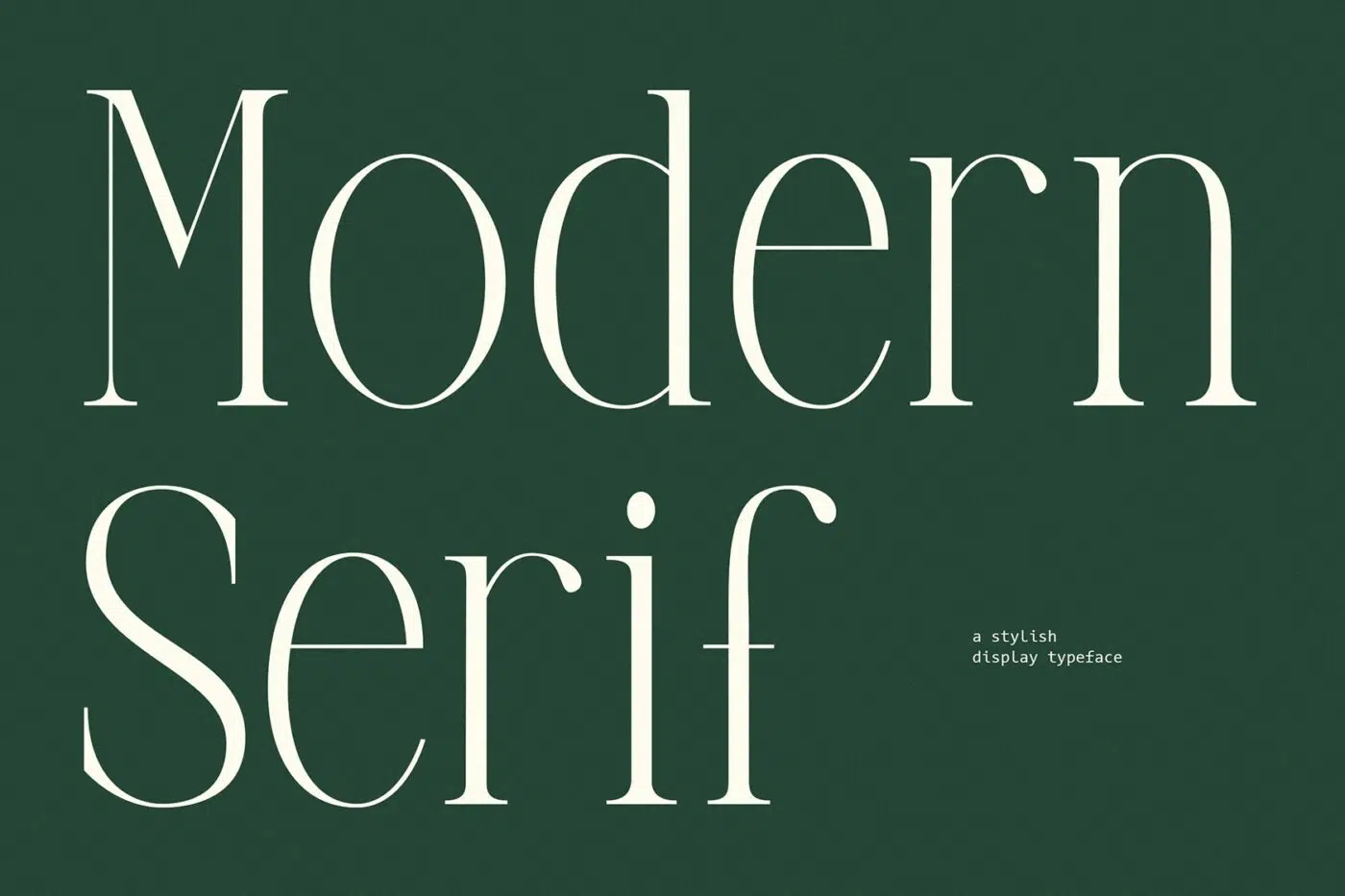
How to Choose the Right Font for Your Brand Identity
When it comes to creating a memorable brand, the visual elements usually steal the spotlight. We often focus on logos, colors, and imagery, but there’s one key player that sometimes gets overlooked—fonts. The fonts you choose can have a huge impact on how people see your brand and can even influence how they interact with it.
In this guide, we’ll dive into why font choice is so important for shaping your brand’s identity, walk you through the process of selecting the right fonts, and share some practical tips on using fonts across different media. Let’s get started!
Understanding Font Basics
Before diving into font selection, it’s helpful to know some basic typography terms that will guide you along the way.
Image above: Showing off our Modern Serif font ‘Brookleigh’
Serif Fonts: These are the classic fonts with small lines or strokes attached to the ends of letters. They give off vibes of tradition, authority, and reliability. Think of fonts like Times New Roman and Georgia .
Image above: A simple handwritten sans-serif font ‘TC Jimmy Sans Pro‘
Sans-Serif Fonts: Sans-serif fonts skip the extra strokes, giving them a clean and modern look. They’re often seen as simple, clear, and up-to-date. Popular examples include Helvetica and Arial.
Image above: Royal Tropic in action on a book cover design!
Script Fonts: These fonts are decorative and mimic handwriting, adding a touch of elegance or creativity. They’re great for conveying luxury or a personal touch, but it’s best to use them sparingly since they can be hard to read in large blocks of text.
Image above: Big and Bold Swangler Display Font in action on a Jazz Festival Poster
Display Fonts: Bold and attention-grabbing, display fonts are unique and stylized, perfect for headlines or branding elements. They’re fantastic for making a statement but not ideal for body text.
Each font type brings its own emotional feel and can shape how people perceive your brand. Choosing the right one means understanding these nuances and matching them with your brand’s personality and values.
Establishing Your Brand’s Voice
Fonts aren’t just design elements; they’re a way for your brand to communicate. Just like the tone of voice in your messaging shapes how people see your brand, your font choice does the same. A bold sans-serif font, for instance, can project strength and confidence, while a delicate script font might suggest elegance and creativity.
Picking the right font means really knowing your brand’s personality and values. If your brand is all about being modern and innovative, sans-serif fonts could be your go-to. But if your brand leans towards tradition and trustworthiness, serif fonts might be the better fit.
Font Selection Process
Choosing the right fonts for your brand involves a few key steps. Here’s a structured approach to help you pick fonts that truly reflect your brand identity.
The Antiquated Font Family in action for a Whisky brand’s label.
Identifying Brand Personality
Start by defining your brand’s personality. Think about adjectives that describe your brand—playful, elegant, bold, or authoritative? Tools like mind mapping, mood boards, or analyzing competitor brands can help you pinpoint these traits.
Different font styles evoke different emotions. Serif fonts often suggest tradition and reliability, while sans-serif fonts feel modern and clean. Choose fonts that match the vibe you want your brand to convey.
Font Legibility and Practicality
While aesthetics matter, readability is a must. Your fonts should be clear across all platforms—web, print, or mobile. Keep in mind that some fonts designed for print might not look great digitally. Fonts like Georgia and Verdana were specifically created for digital legibility.
Consider where your fonts will be used. Simple, readable fonts like sans-serif or serif work best for body text, while more expressive fonts can be great for headers or call-to-action buttons.
Font Pairing and Hierarchy
Using just one font often falls short. Effective font pairing means combining different fonts to create a cohesive brand look. For example, pairing a bold sans-serif for headers with a classic serif for body text can strike a nice balance between modern and traditional.
Establishing a visual hierarchy with different fonts, weights, and sizes helps guide the reader’s attention and makes your content easy to digest. Tom Chalky’s resources offer great options for experimenting with font pairings to find what works best for your brand.
Technical Considerations
Consider whether your fonts will appear digitally or in print, as this can influence your choice. Some fonts are optimized for screens, while others look better in print. Make sure your fonts are sharp and clear in their intended medium.
Also, think about licensing, budget, and availability. Not all fonts are free for commercial use, and licensing can affect your budget. Some brands go for custom fonts to dodge licensing fees and create a unique look.
Implementing Brand Fonts Across Media
Once you’ve picked your fonts, consistency is key. Make sure your chosen fonts are used consistently across all brand touchpoints—from websites and social media to printed materials and packaging. Consistent font usage helps reinforce brand recognition and build trust.
It’s a good idea to create a brand style guide with specific guidelines for using your fonts across different media. Include details like font sizes, weights, colors, and spacing rules for various platforms. Brands that keep their font usage consistent tend to enjoy stronger recognition and customer loyalty.
Choosing the right font is more than just about looks. It’s about understanding your brand’s personality, ensuring readability, and considering the technical side of things, whether digital or print. By carefully selecting and pairing fonts, you can build a strong, cohesive brand identity that truly connects with your audience.
If you’re ready to experiment with different fonts or need some inspiration, check out the extensive offerings available through Tom Chalky’s resources. With the right guidance and tools, your brand can shine with a font choice that truly represents its values and mission.
FAQ Section
What are the best fonts for brand identity?
The best fonts for your brand depend on its personality, values, and audience. Serif fonts like Times New Roman work well for traditional brands, while sans-serif fonts like Helvetica are great for modern and minimalist vibes. If you’re ready to take it up a notch, handcrafted fonts like those in our store are great for creating more relatable identities.
How do fonts affect brand perception?
Fonts play a big role in setting the tone for your brand. Bold, clean fonts can communicate strength and confidence, elegant script fonts often convey luxury and creativity, while handmade fonts can give a sense of a human’s touch and appear more approachable and honest.
Should I use a custom font for my brand?
Custom fonts can give your brand a unique look, but they come with higher costs and possible implementation challenges. Weigh the pros and cons of custom fonts versus high-quality pre-existing ones. If you’re a brand looking at developing a custom handmade-looking font, feel free to reach out. We’d love to work with you!
How can I ensure consistent font usage across platforms?
A brand style guide is your best friend here. Outline specific rules for font sizes, weights, colors, and usage across different platforms to keep things consistent, which helps strengthen brand recognition and trust.